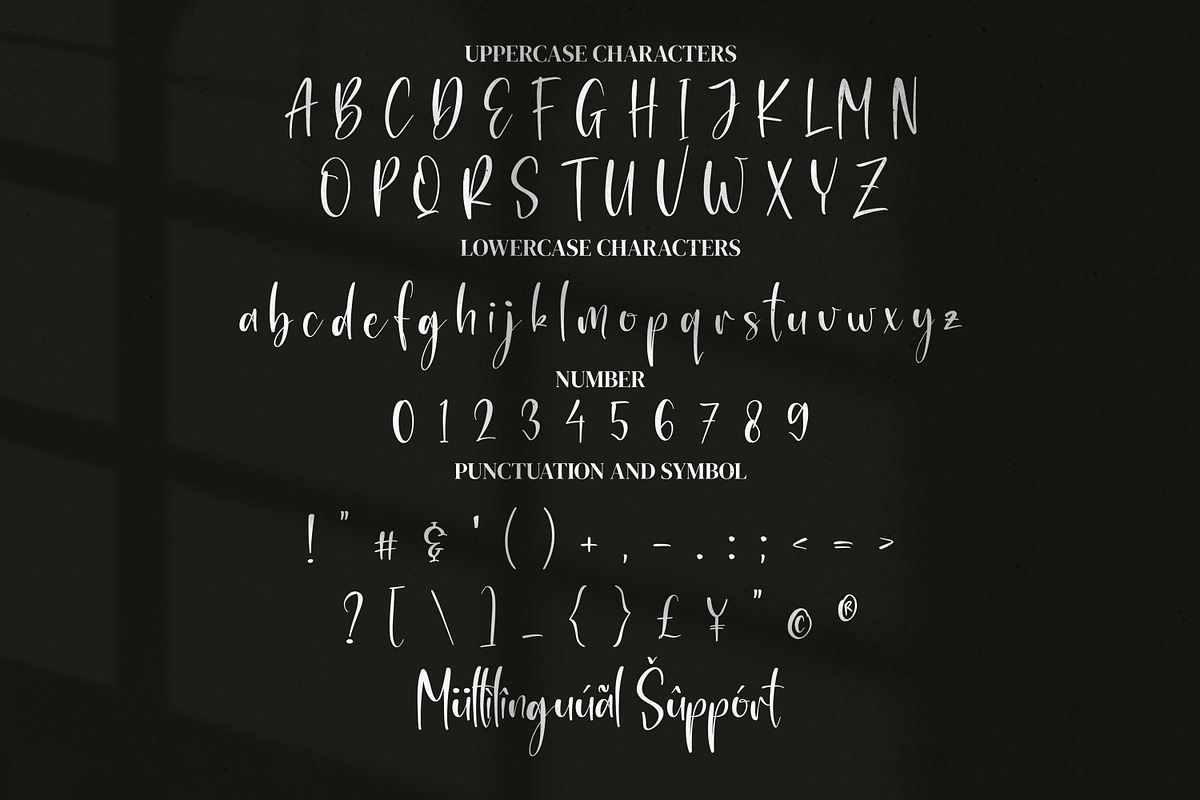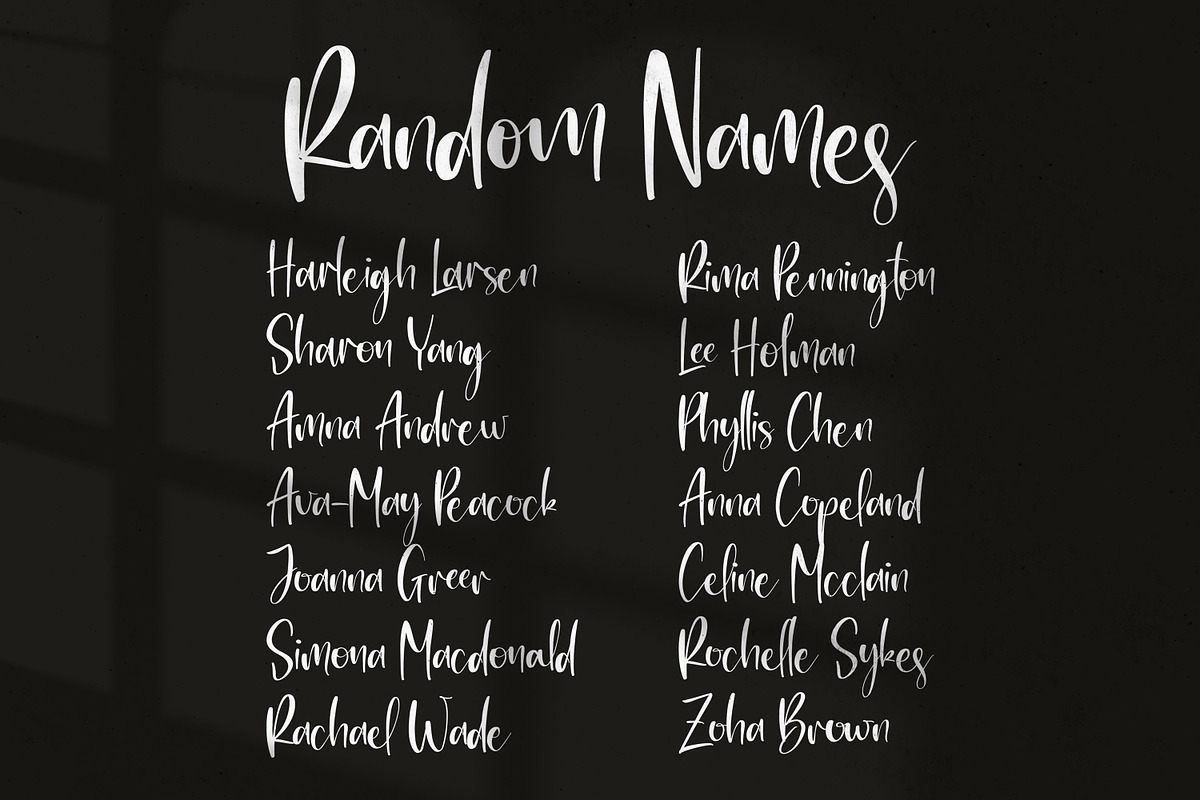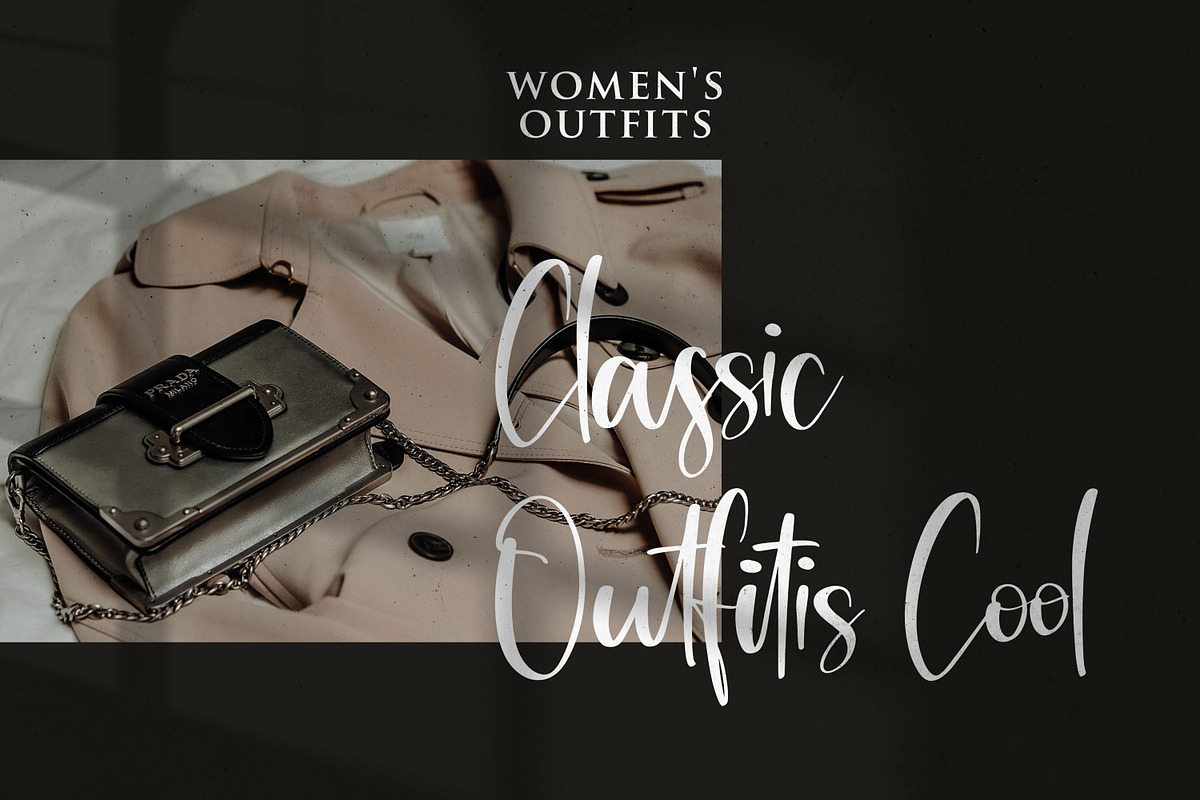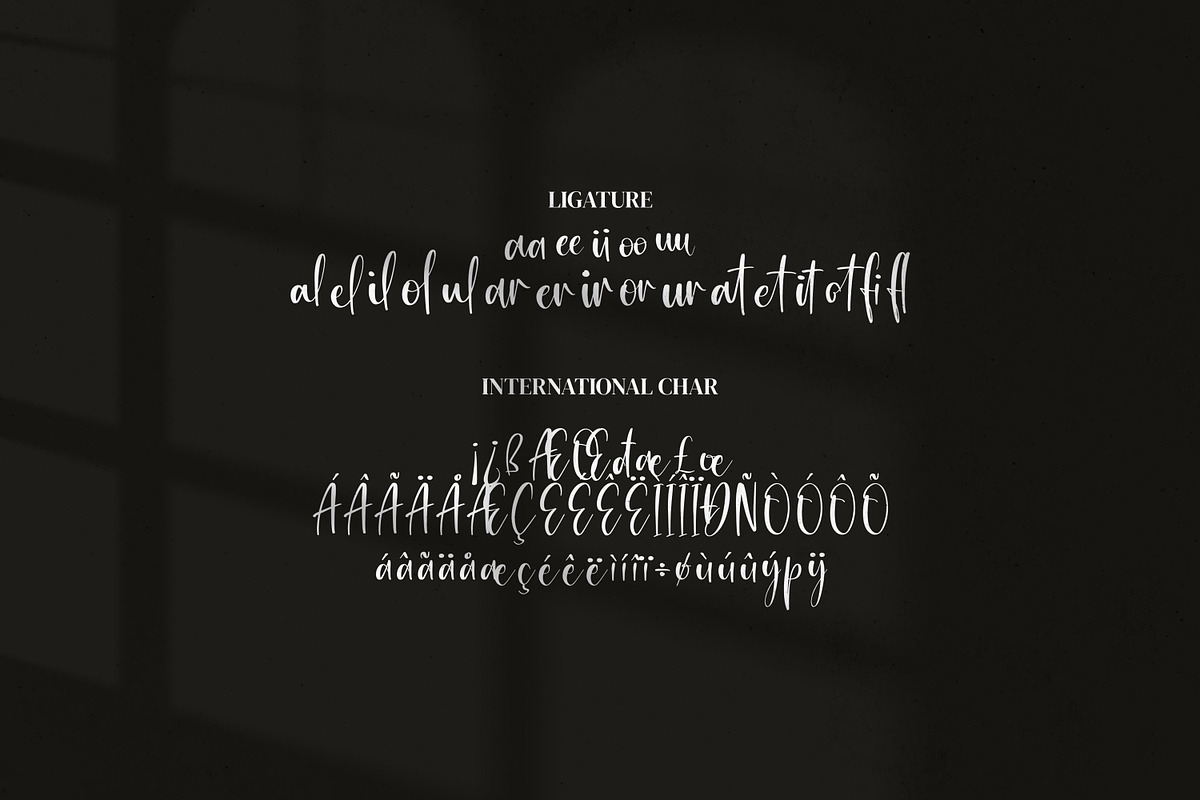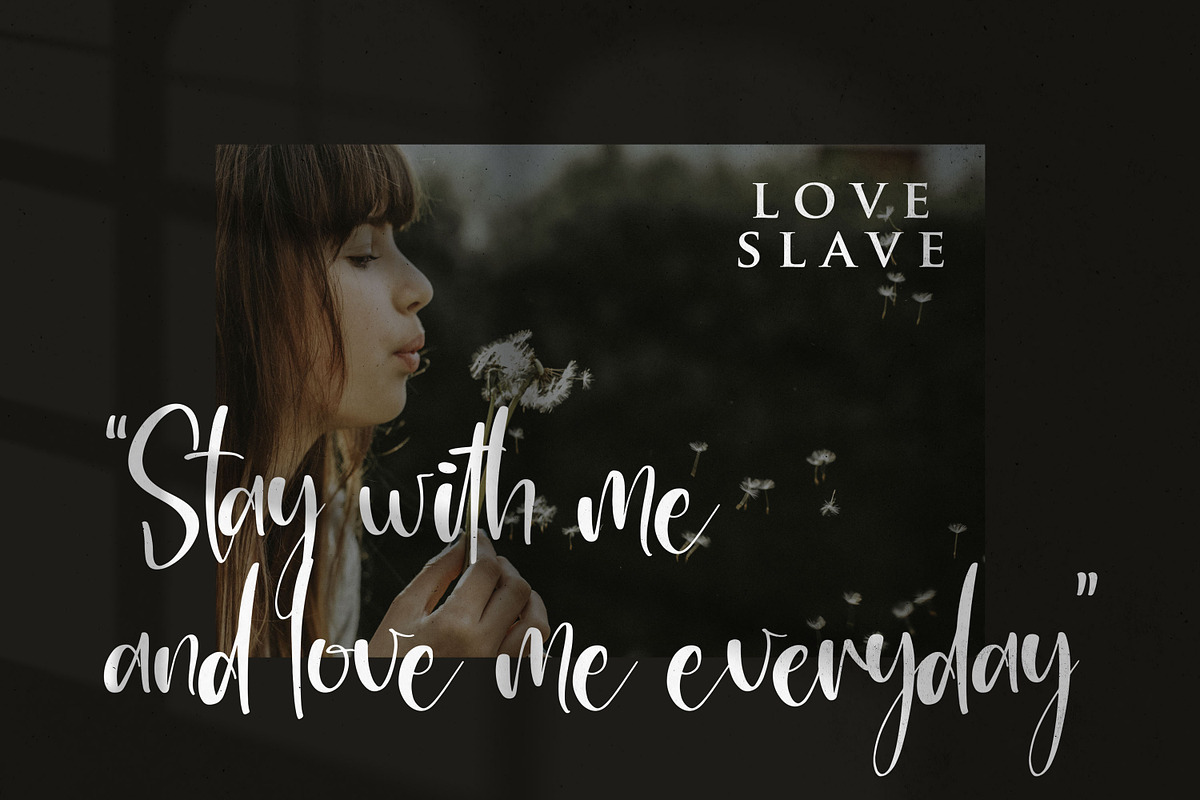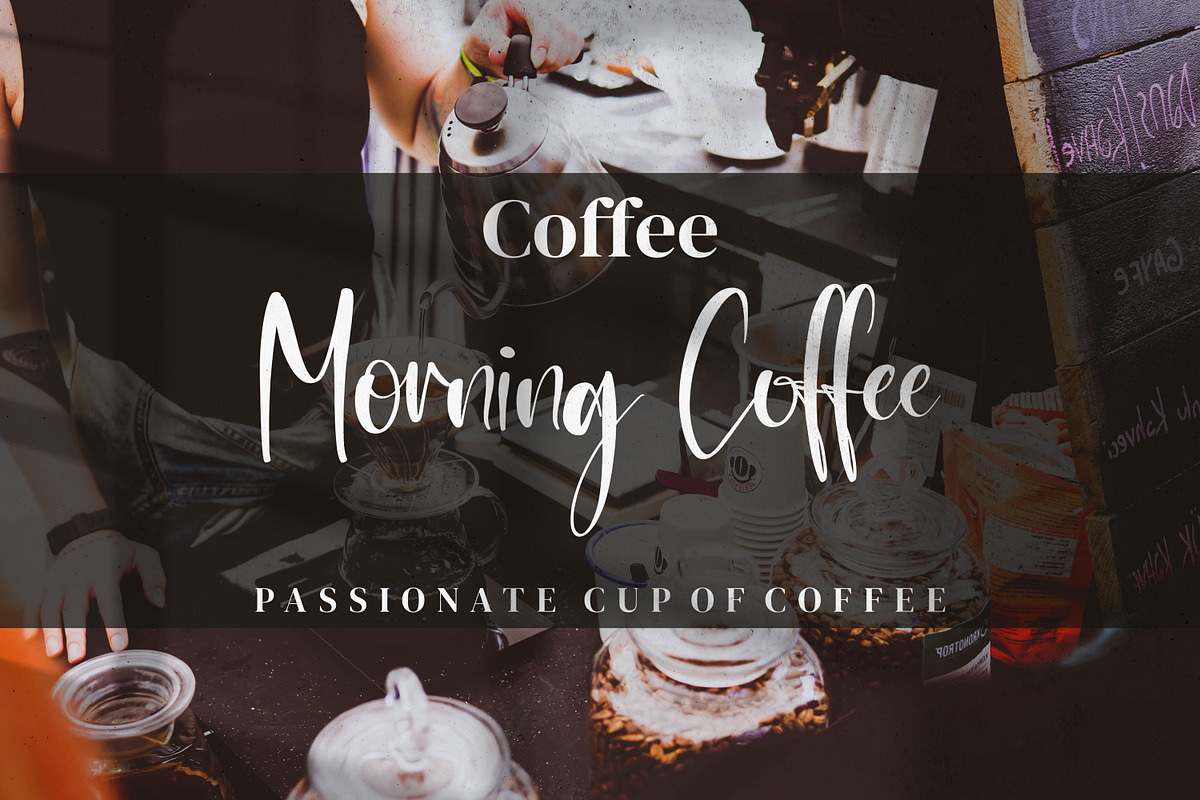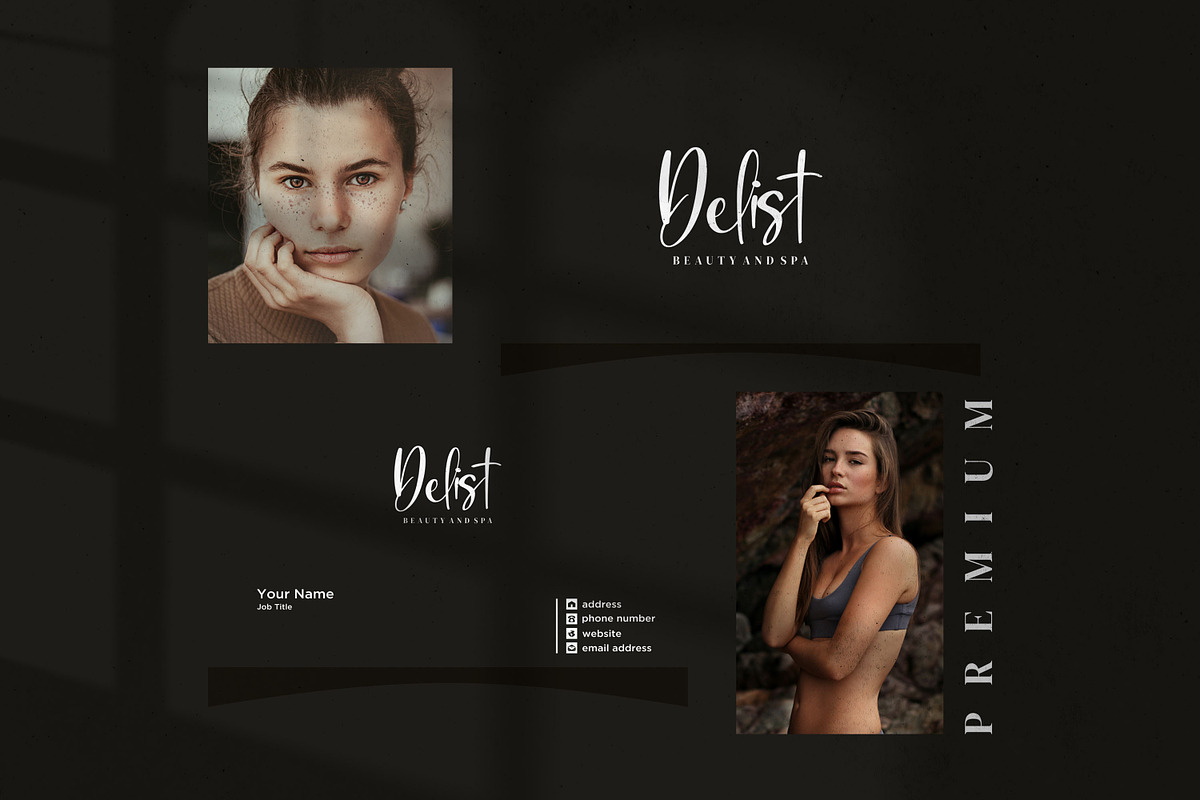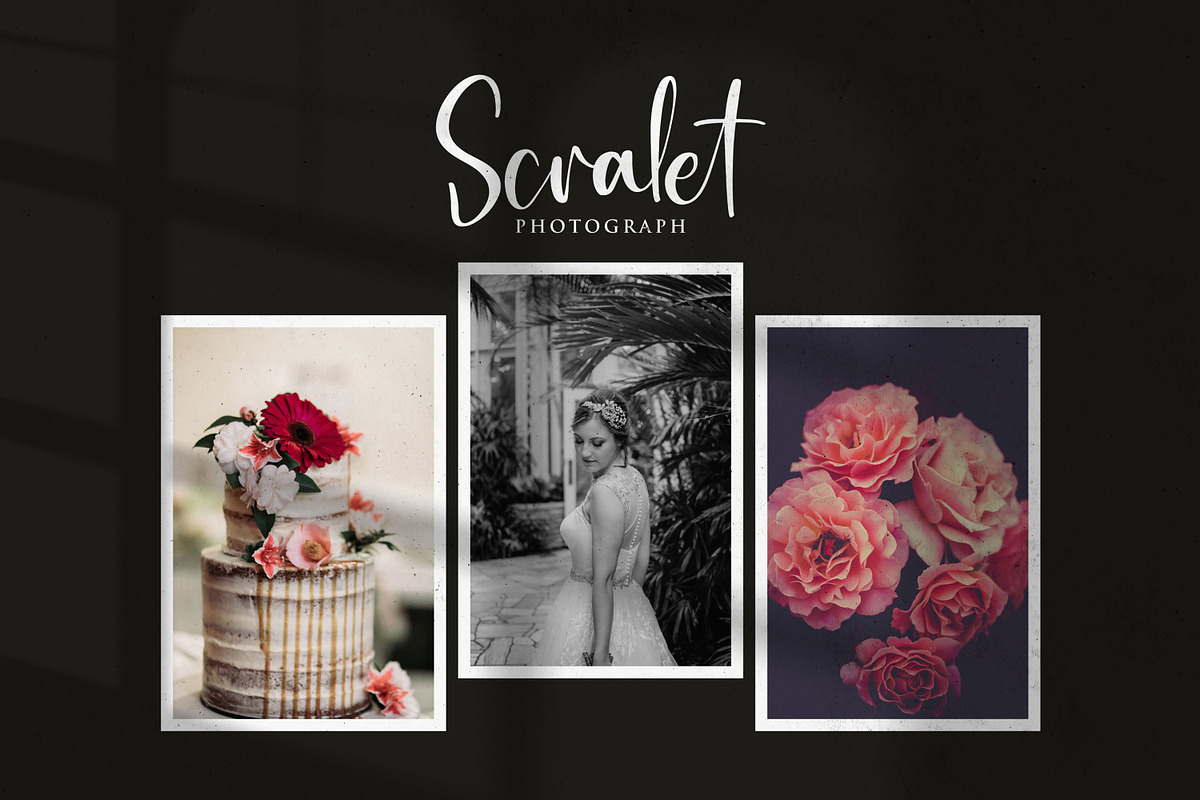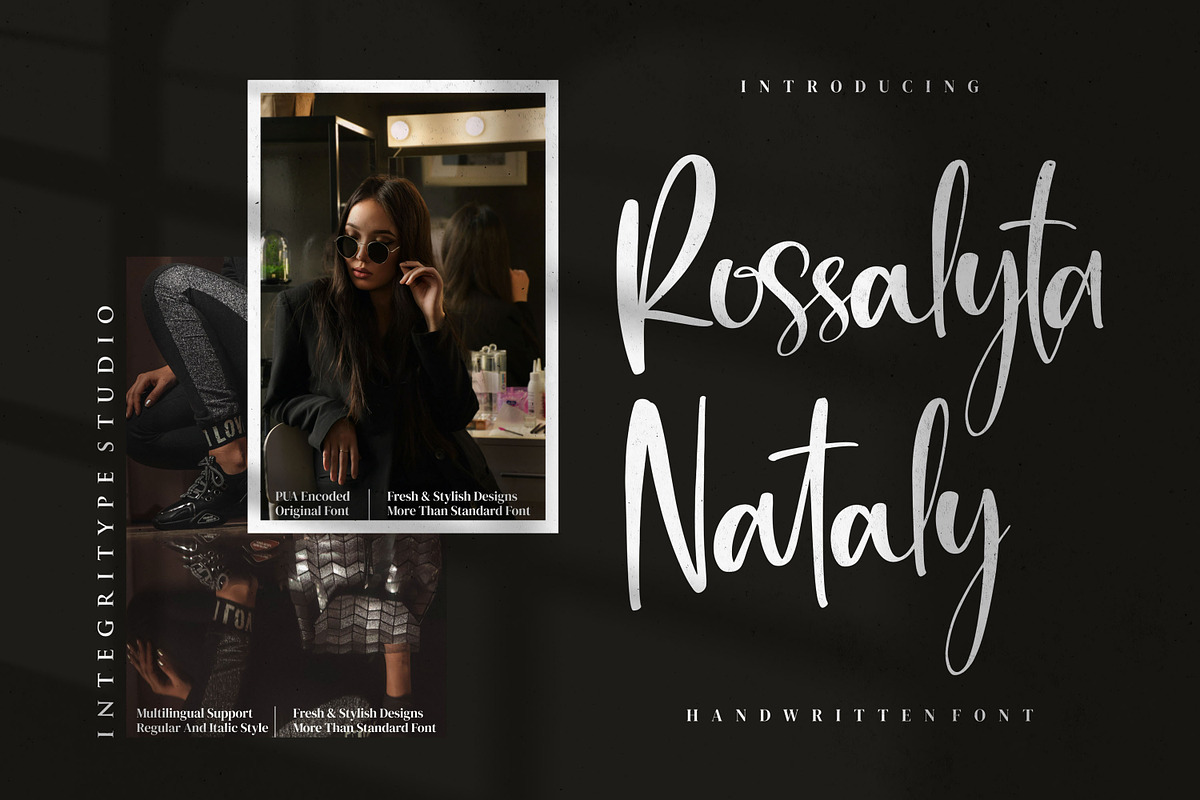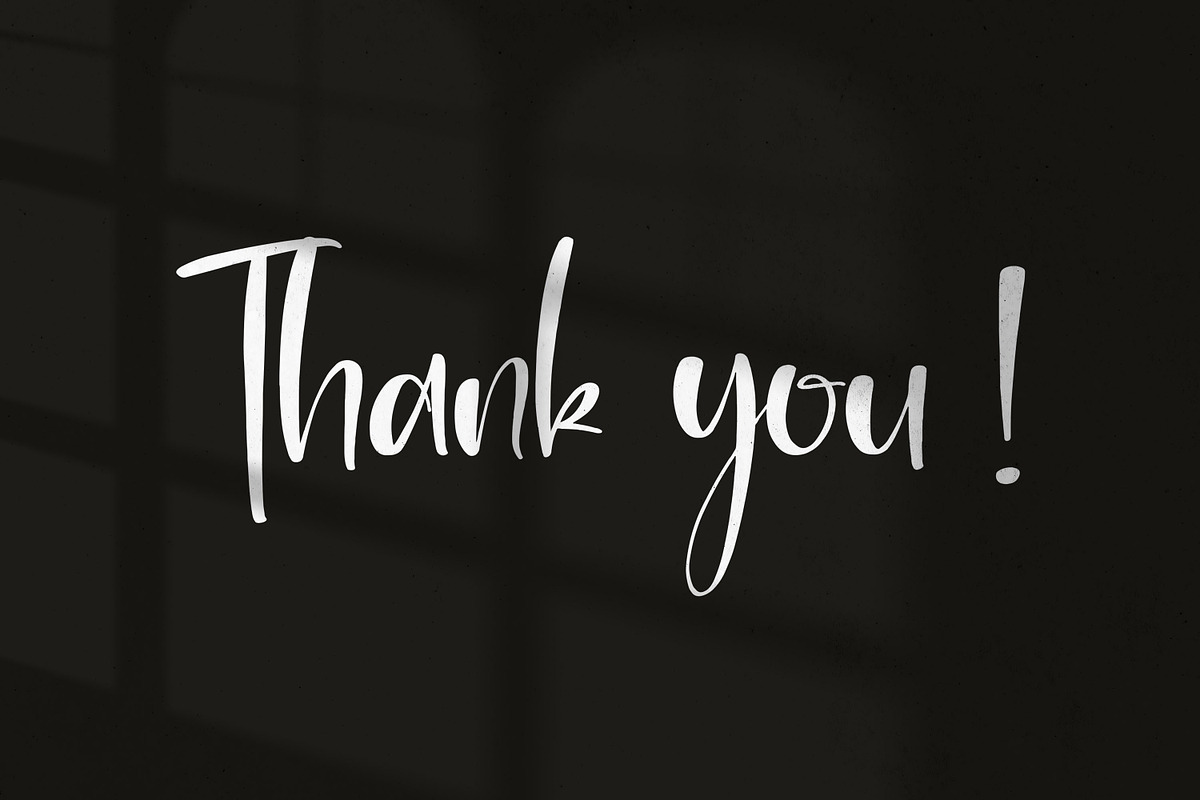
Rossalyta Nataly
Rossalyta Nataly - Handwritten Font, from Integritype Studio, is a premium Handwritten Font, perfect for any project like: logos, branding projects, homewares designs, product packaging, mugs, quotes, posters, shopping bags, t-shirts, covers books, business cards, invitation cards, greeting cards, labels, photography, watermarks, special events and all your other luxury projects that require a premium taste.
Ligatures, Alternatives & Swashes